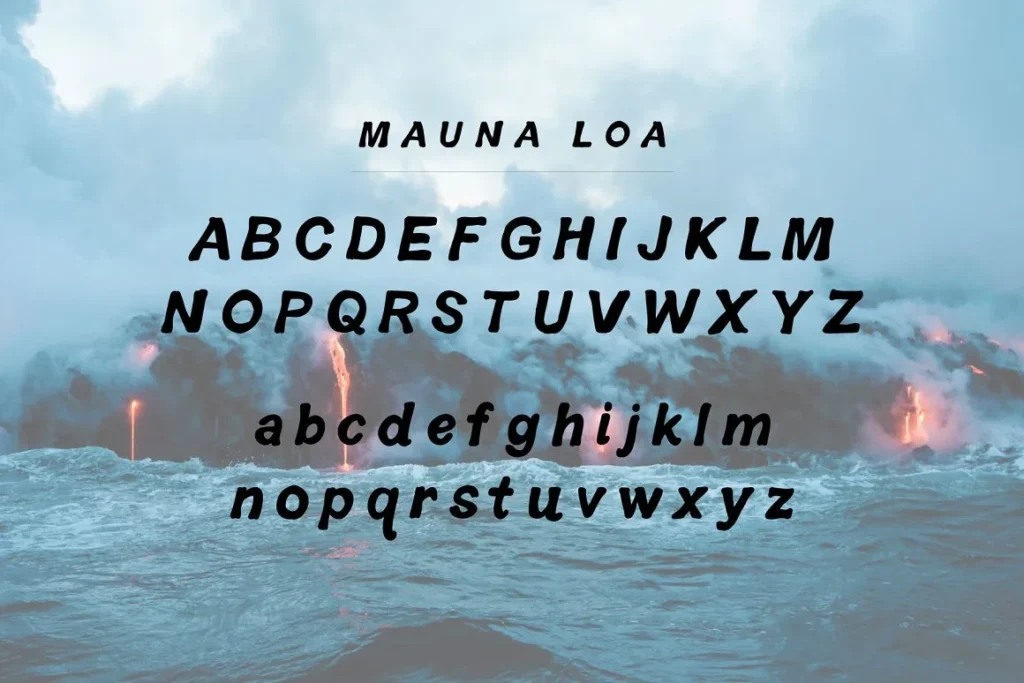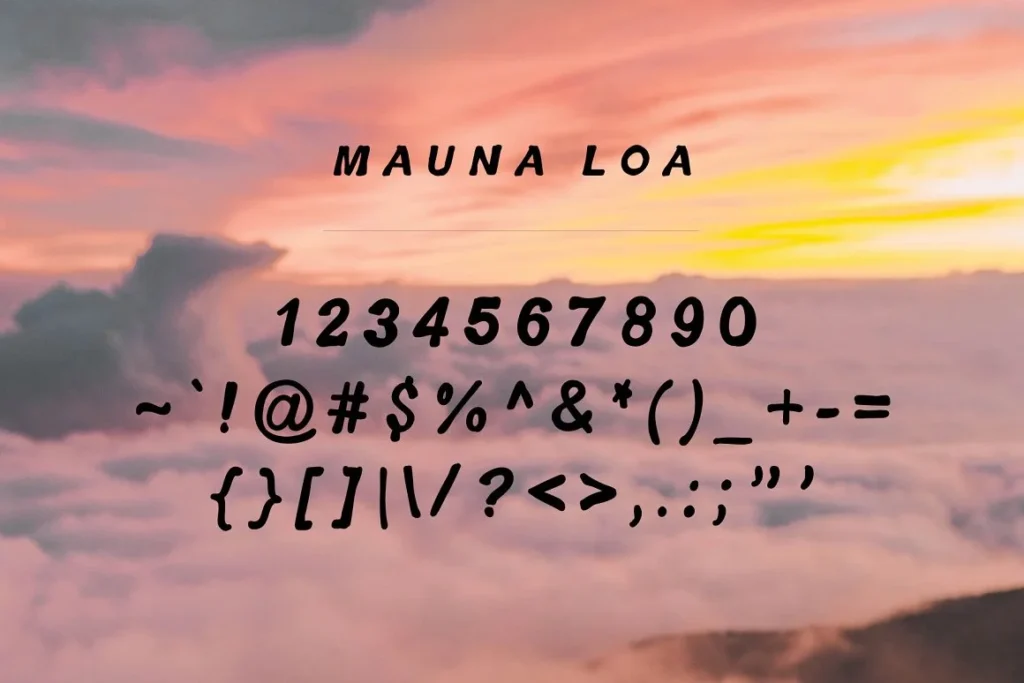
🌺 Dive into the enchanting world of Vintage Hawaiian Font Mauna Loa as we explore its rich history and vibrant culture!
Mauna Loa A Vintage Hawaiian Font we’ll take you on a visually stunning journey showcasing how this unique font transports you to the lush landscapes of Hawaii.
Discover its significance in art and design, and learn how to incorporate this beautiful typography into your creative projects.✨ Whether you’re a design enthusiast or simply curious about Hawaii’s heritage, this vivid exploration promises to inspire.